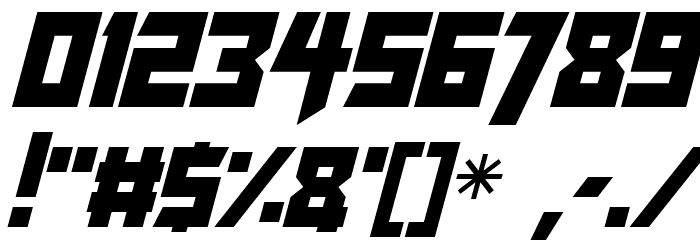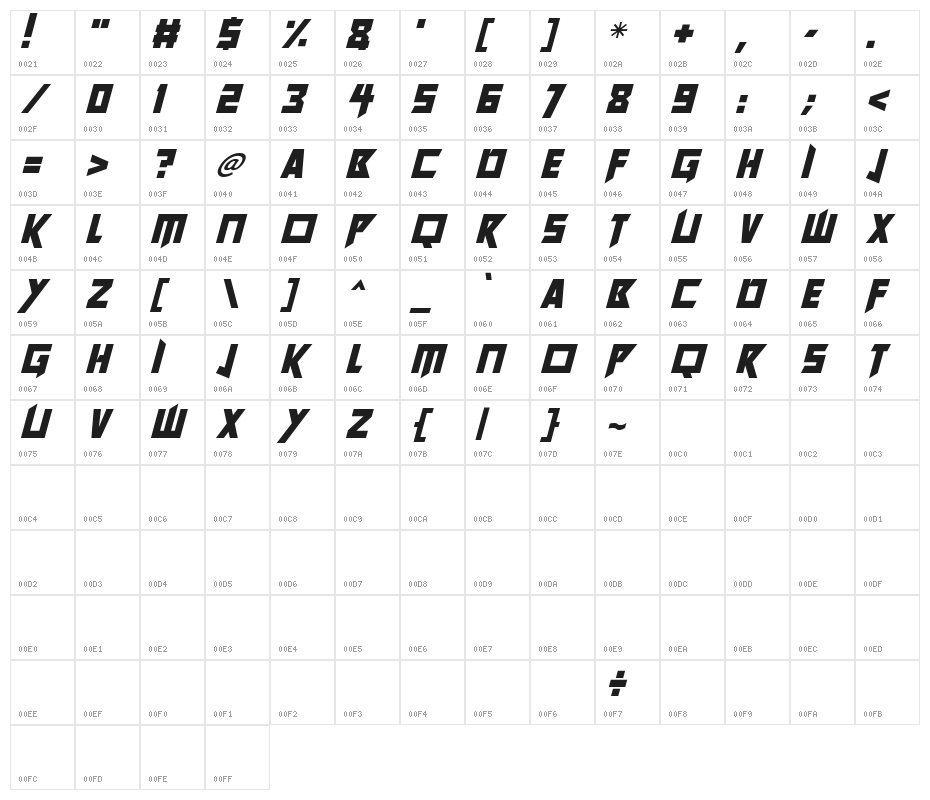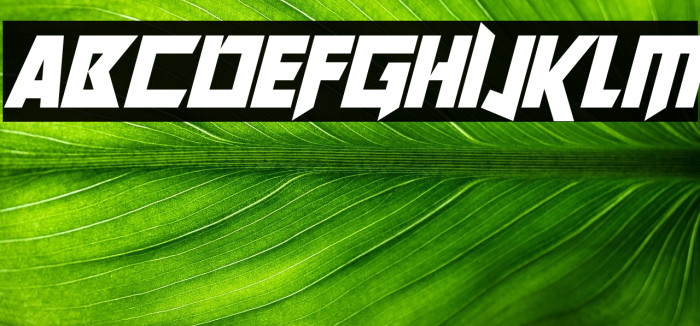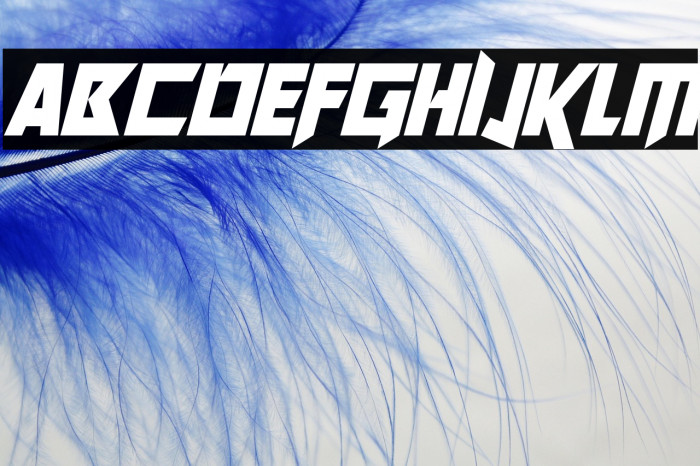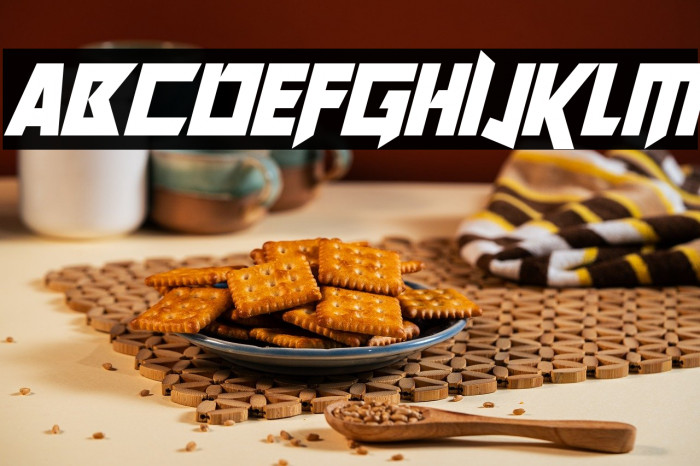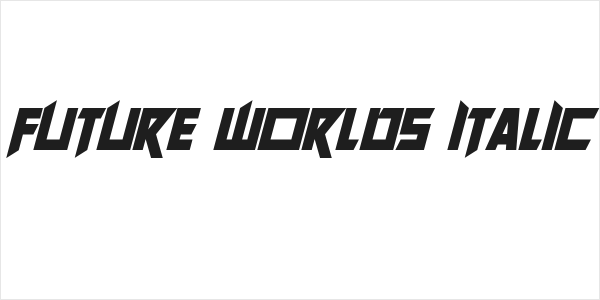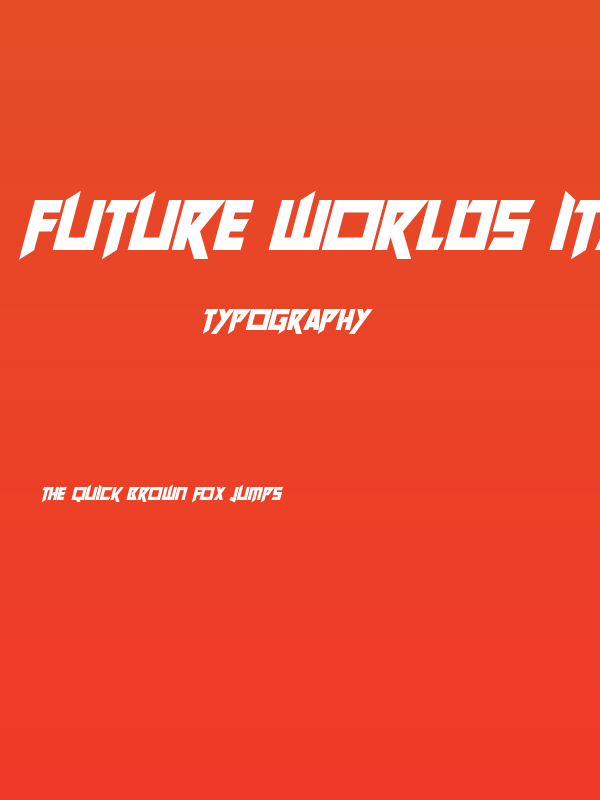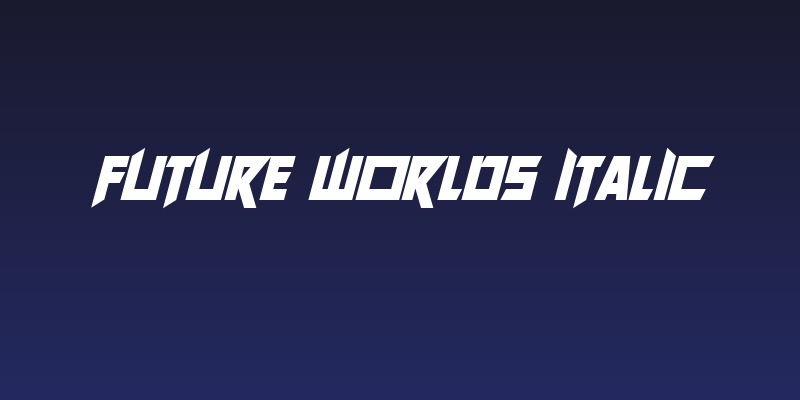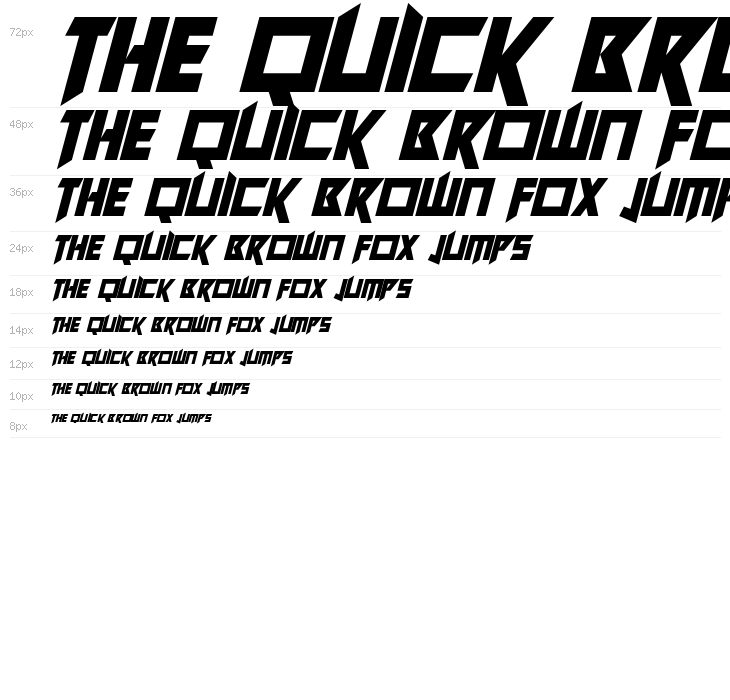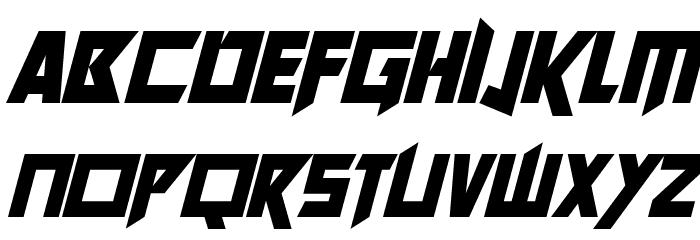
Future Worlds Italic Font
Future Worlds Italic Description
This font features a futuristic and angular design, characterized by sharp edges and a dynamic, italicized slant. The bold and geometric shapes give it a strong presence, making it ideal for attention-grabbing headlines. The uppercase letters are particularly striking, with a consistent angular motif that runs throughout the alphabet. The numbers and special characters maintain the same bold and angular style, ensuring uniformity across all characters. The overall design suggests a modern, tech-inspired aesthetic, suitable for projects that require a sense of innovation and forward-thinking.
| Proposed Projects | Ideal for sci-fi movie posters, tech company branding, video game titles, and futuristic-themed event promotions. |